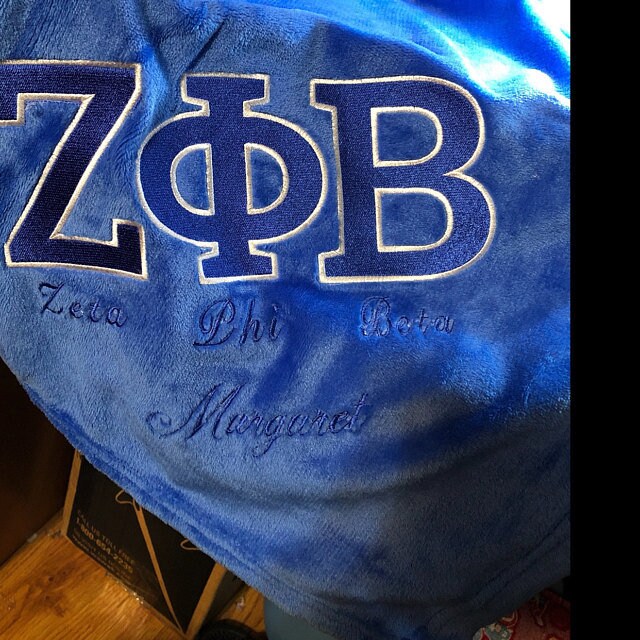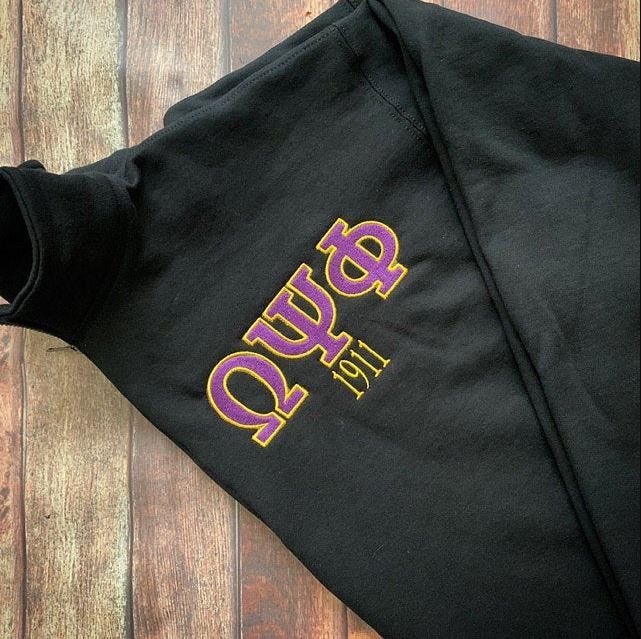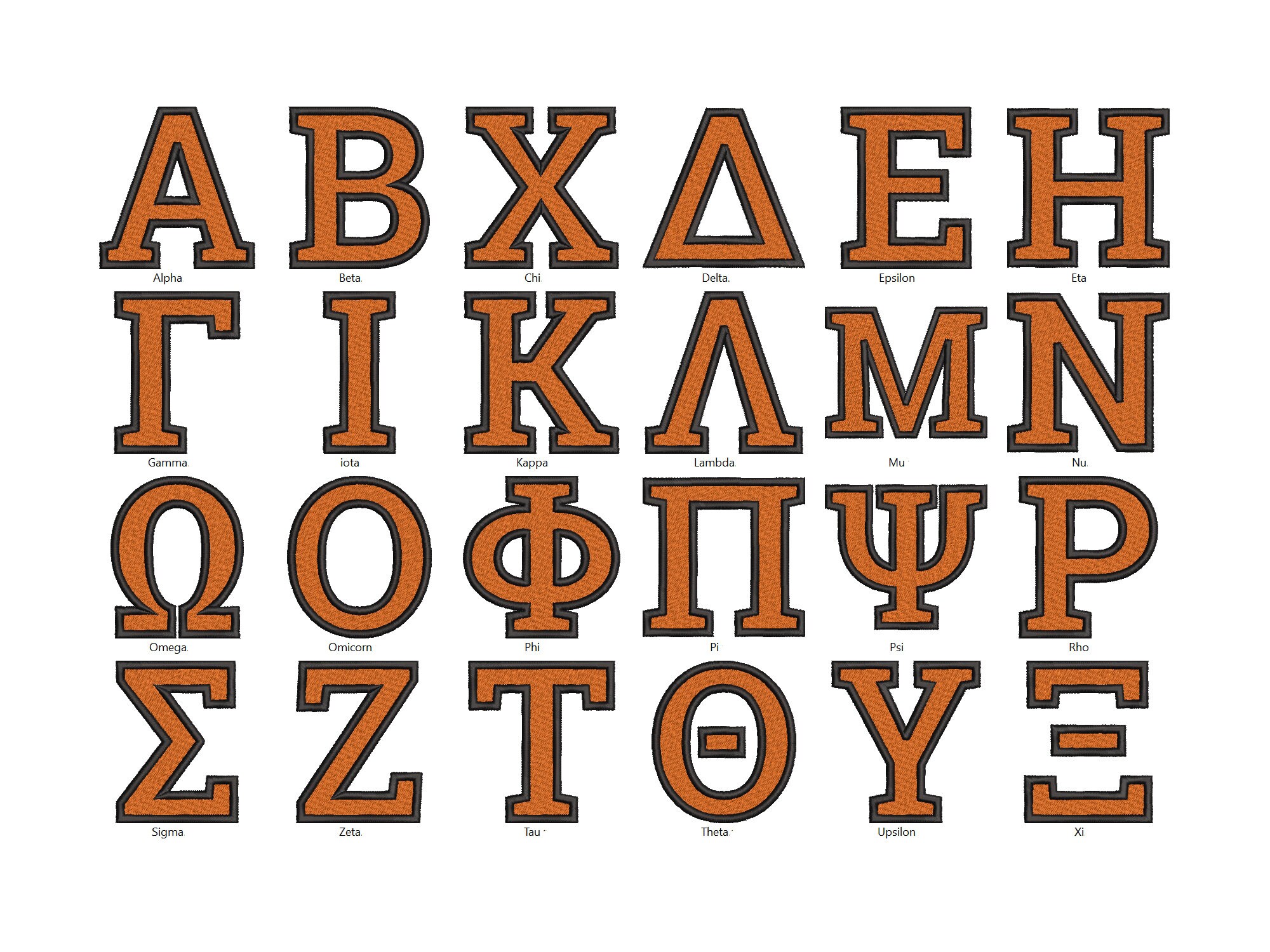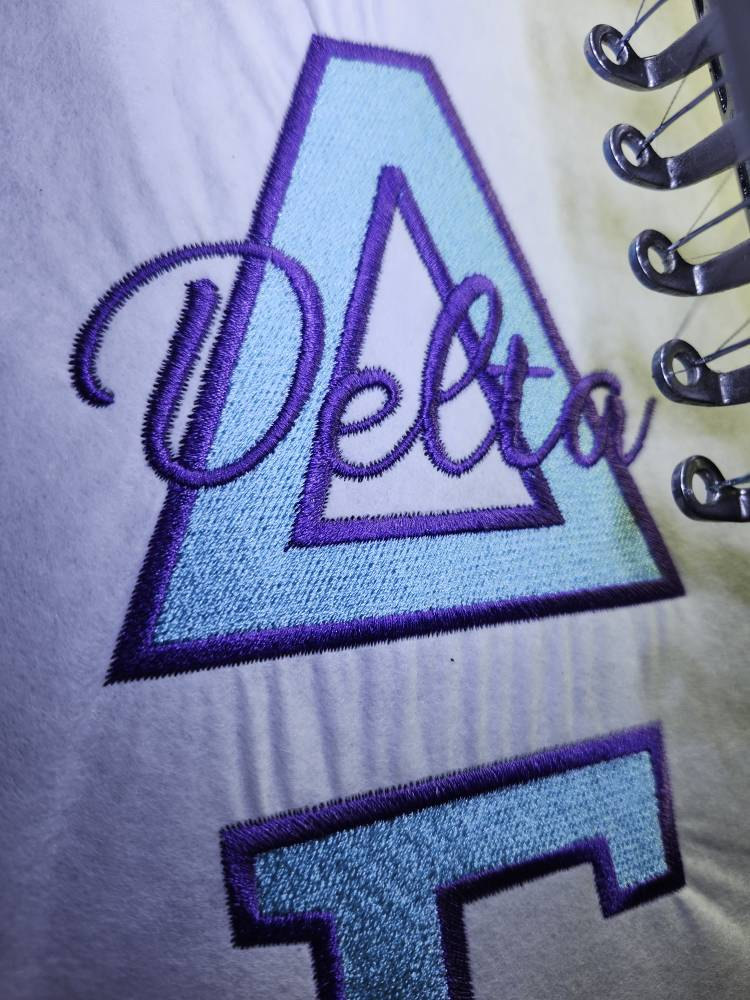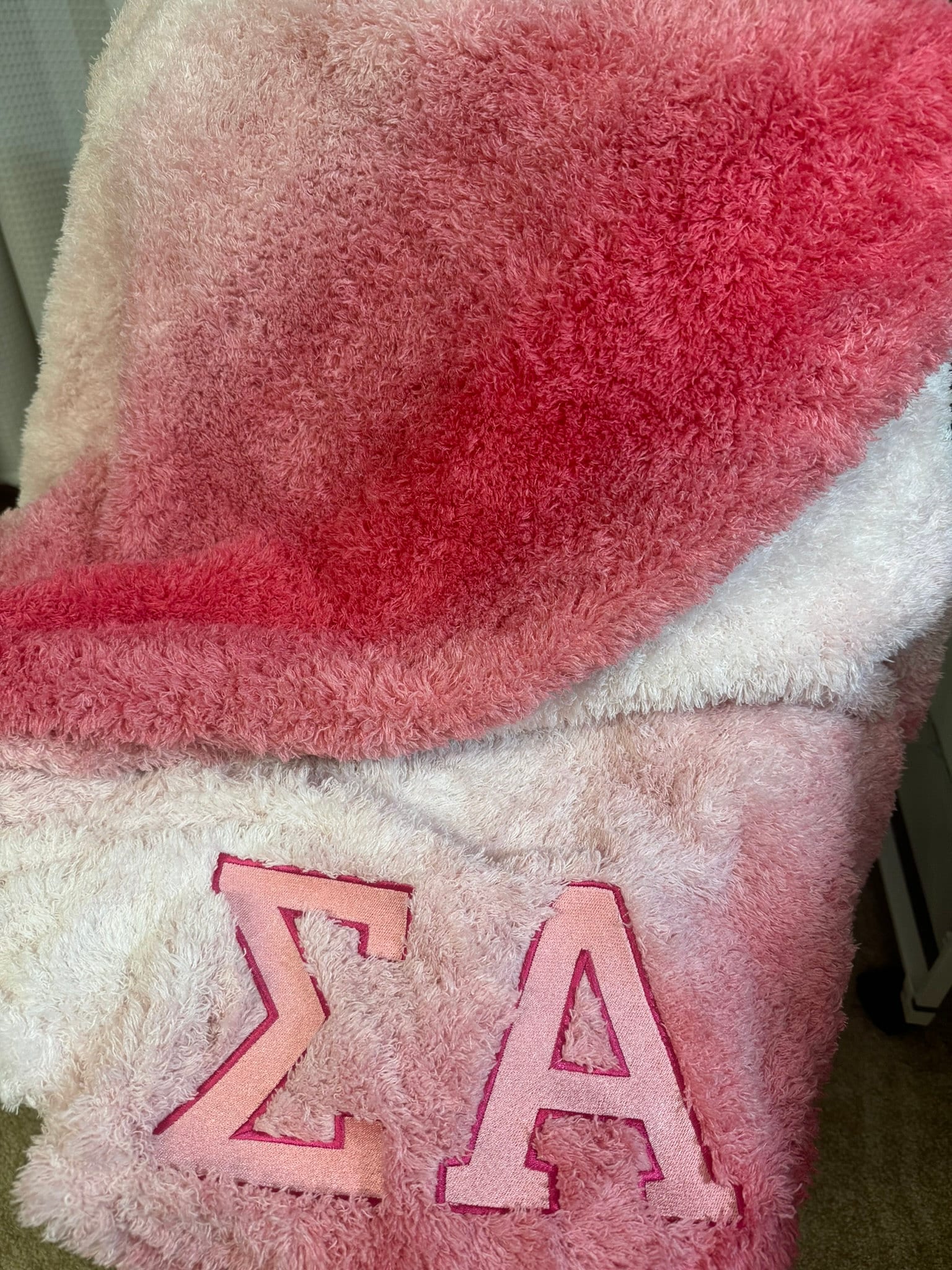
BIG Fill stitch Greek font alphabet Alpha Beta Gamma 2 colors Greek font sororities fraternities machine embroidery designs BX included
Font is fill stitched and has a contrast (second color) finish outline
SIZES (in height)
50mm - 2 inches
60mm - 2.5 inches
75mm - 3 inches
80mm - 3.5 inches
95mm - 4 inches
110mm - 4.5 inches
130mm - 5 inches